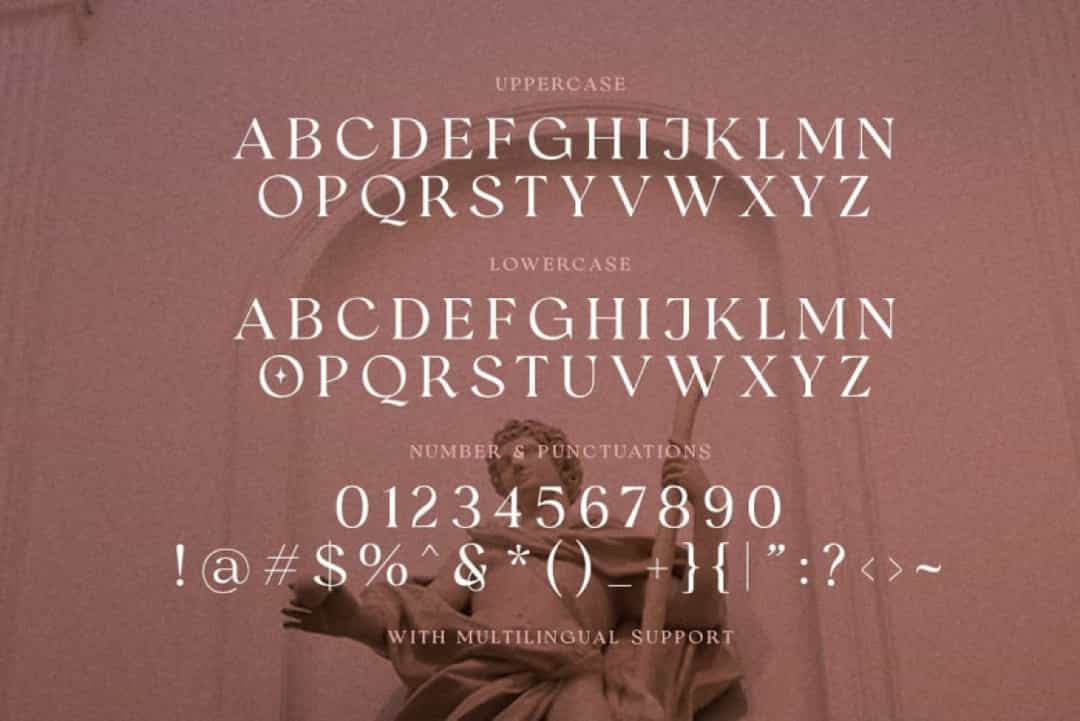
Romans Story Font is an exquisite serif with ligatures designed by us and available now. Each letter of this font was meticulously created to ensure its highest quality and luxurious aesthetic, and its unique ligatures stand out more than your average serif font.